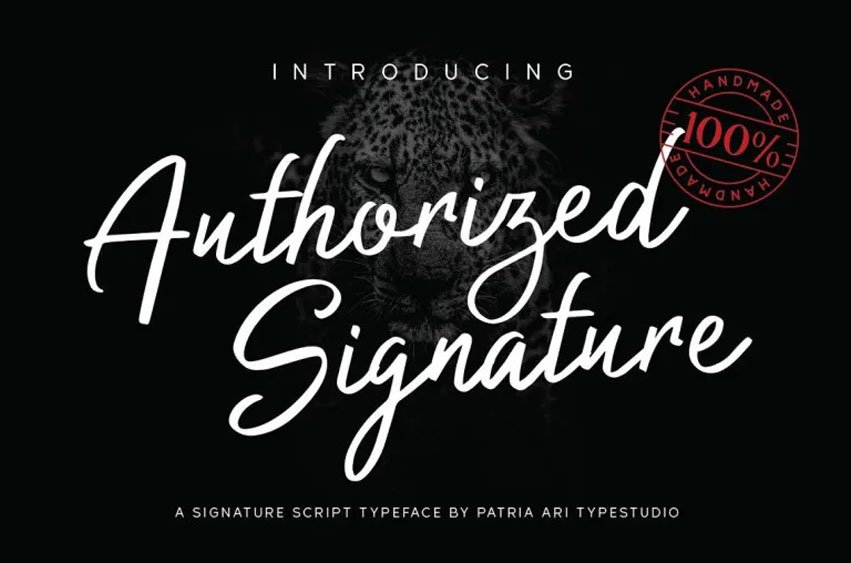
Authorized Signature Font is an elegant handwritten signature-style script font featuring intricate designs in each glyph, making it suitable for any design purpose ranging from logo branding and modern advertisement designs to posters quotes book covers titles editorial design website blog T-shirt cards etc.